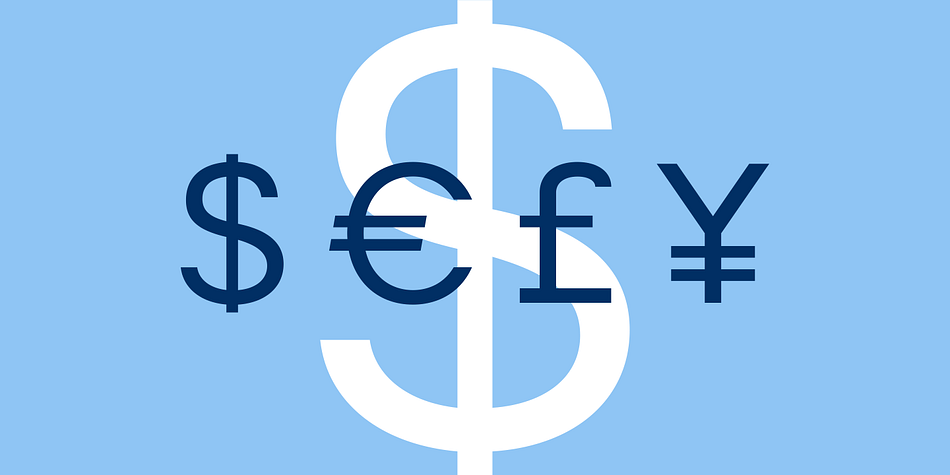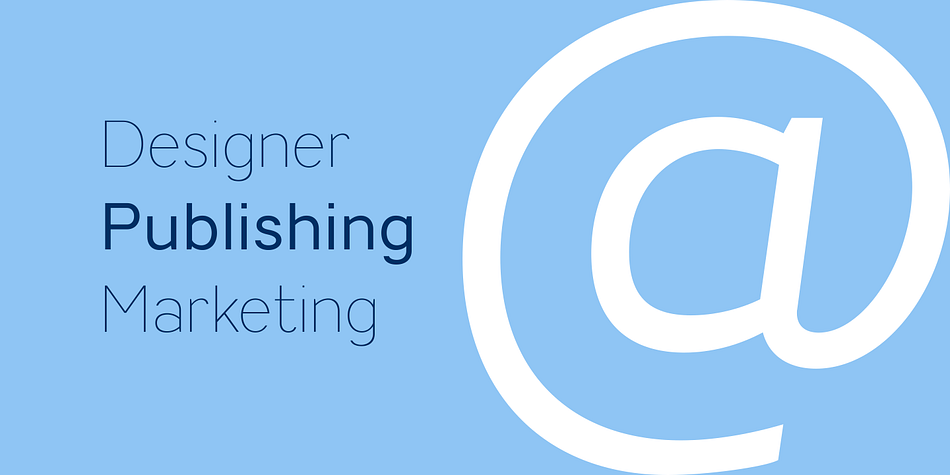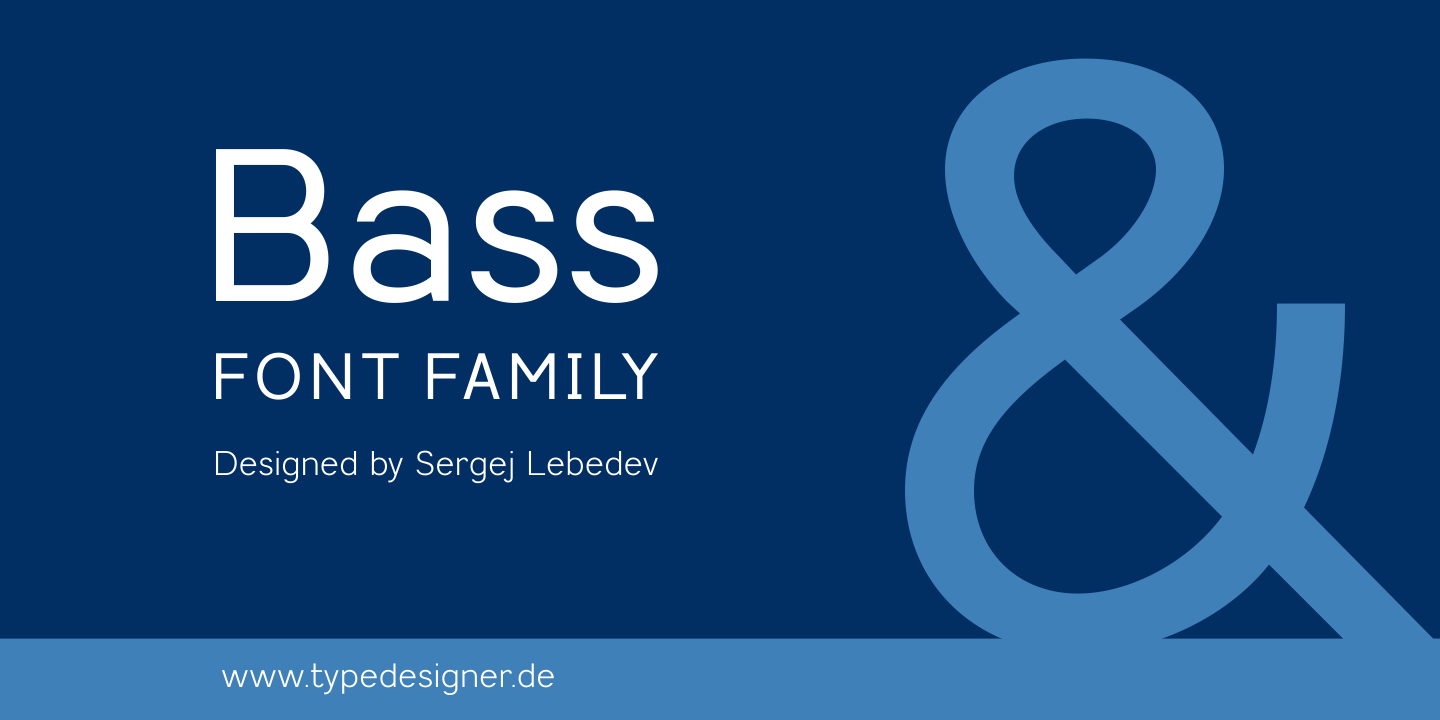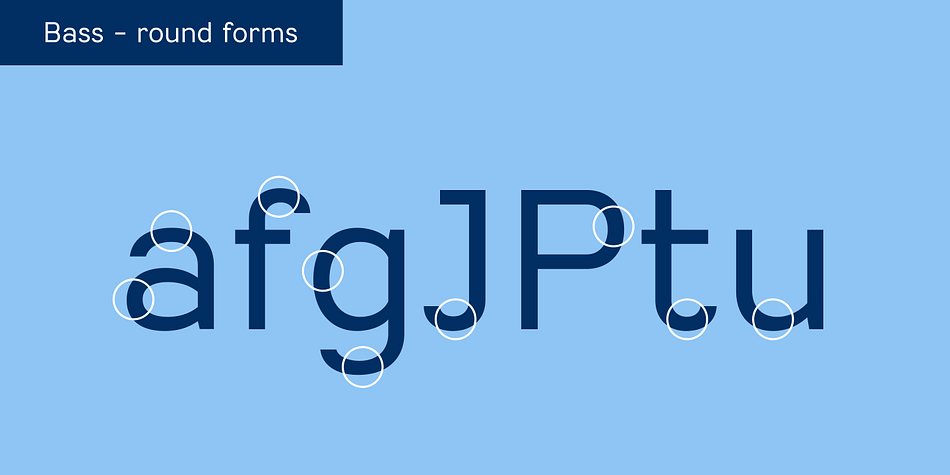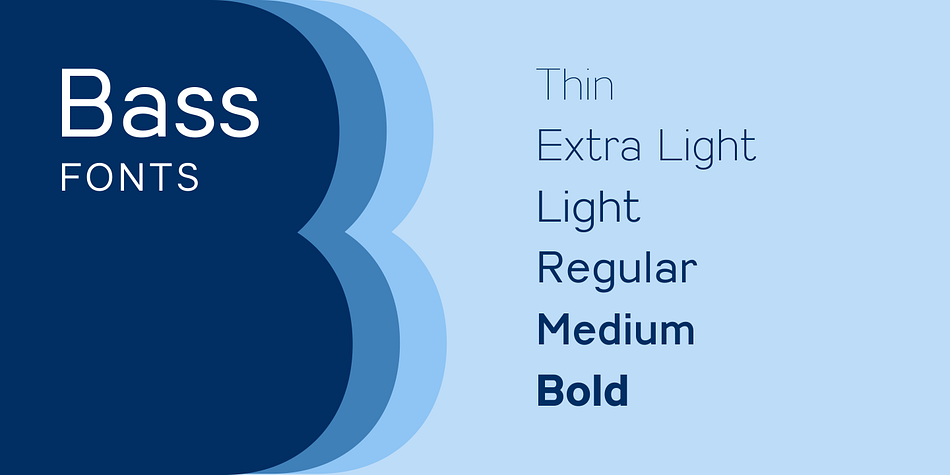
Designed by Sergej Lebedev, Bass is a sans serif font family. This typeface has six styles and was published by Sergej Lebedev.
Bass is a contemporary sans serif font family.
Designed by Sergej Lebedev, the font family consists of 6 styles: Thin, Extra Light, Light, Regular, Medium and Bold.
Bass has a dual quality. It has a modern, mechanical construction and the forms are mostly geometric. Concurrently, the font features friendly and open curves. This makes for a more natural reading rhythm more commonly found in humanist types.
This family is specially developed for screen and desktop use. It was optimized for print and web design.